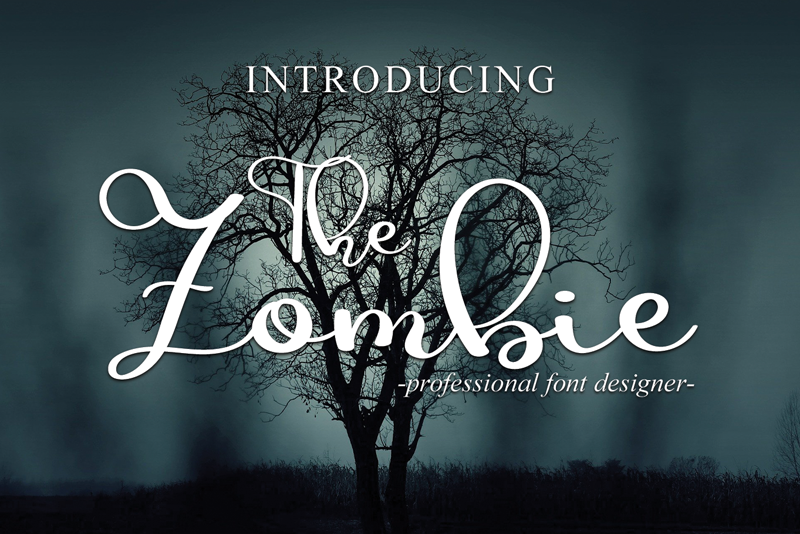
Preview and download The Zombie Font. Created by Luluk Surotul in Script Handwritten styles with Free for personal use license.
The Zombie is a sweet and delicate handwritten font. Dainty and joyful, this font will be ideal for writing wedding invitations, cards or any other design that may need a romantic, personalized touch! Attention : The Zombie handwriting Font is prohibited to use this font for commercial purposes or for profit without the permission of the author/admin, without being known to use this font without permission, will be subject to sanctions 5x the specified price. This font is used only for demos (Demo license) If you want to use this font for commercial use please contact email: elllulukstudio123@gmail.com or click the link below: https://www.creativefabrica.com/product/the-zombie/ref/761303/ If you want to see more other fonts, please click: https://www.creativefabrica.com/designer/el_hotcig Any donations are very appreciated. Paypal account for donation: https://www.paypal.com/paypalme/luluk783 thanks. |